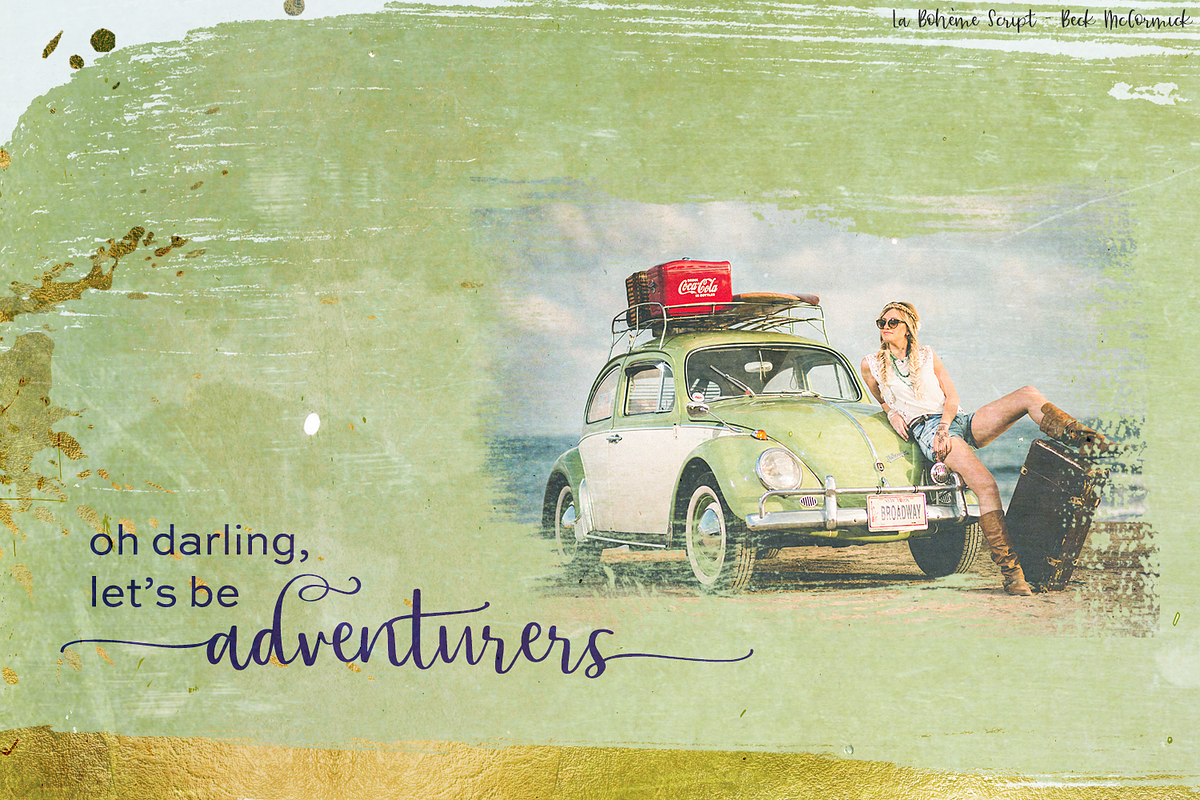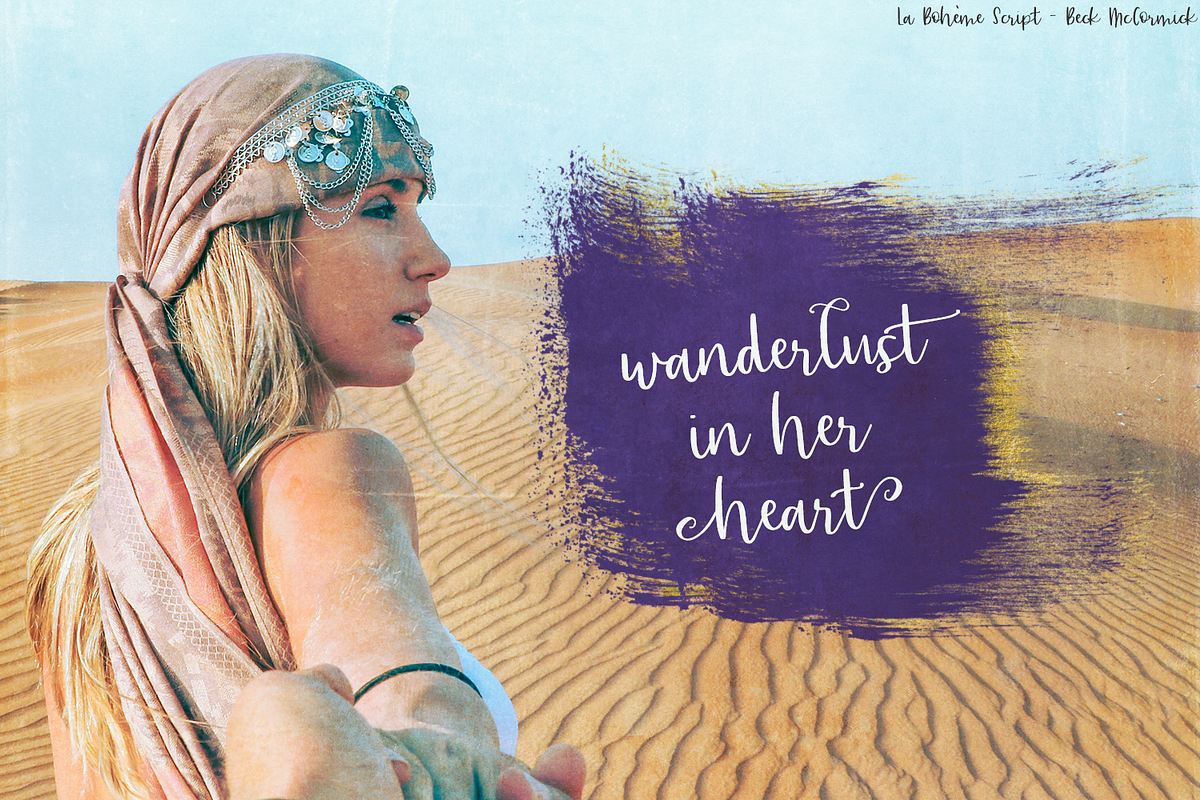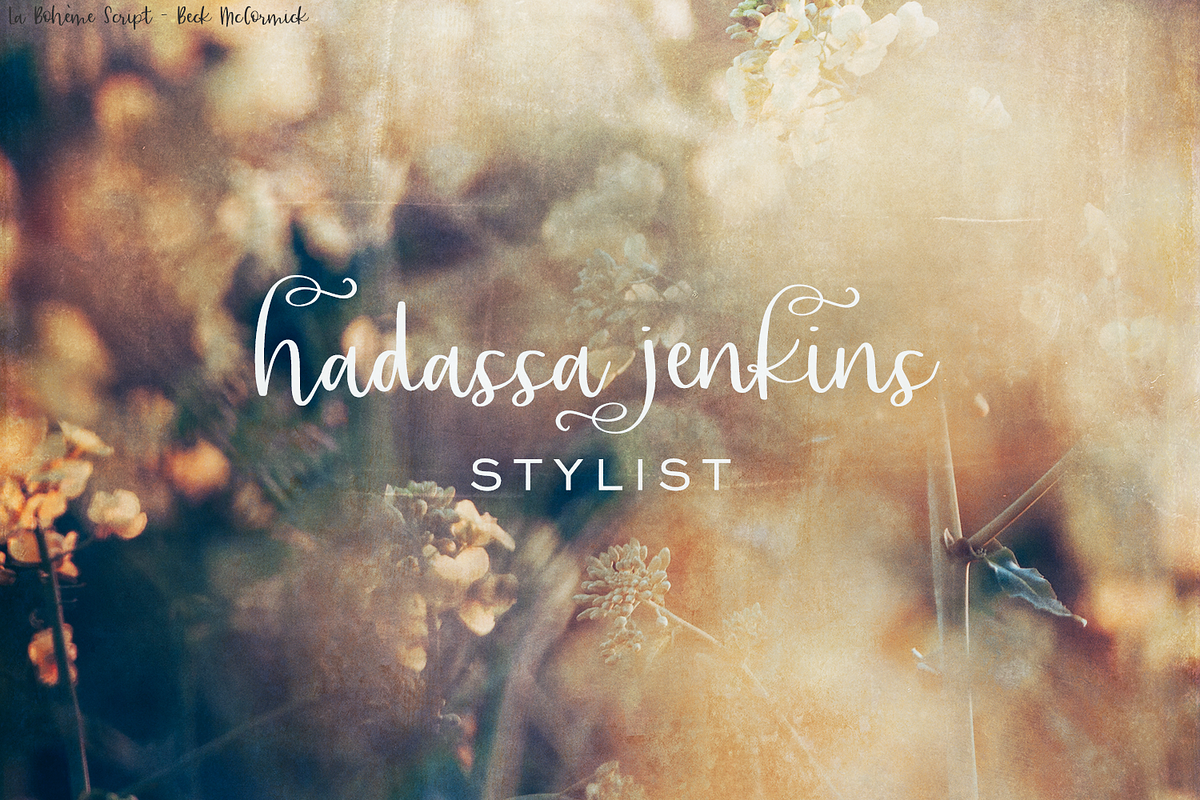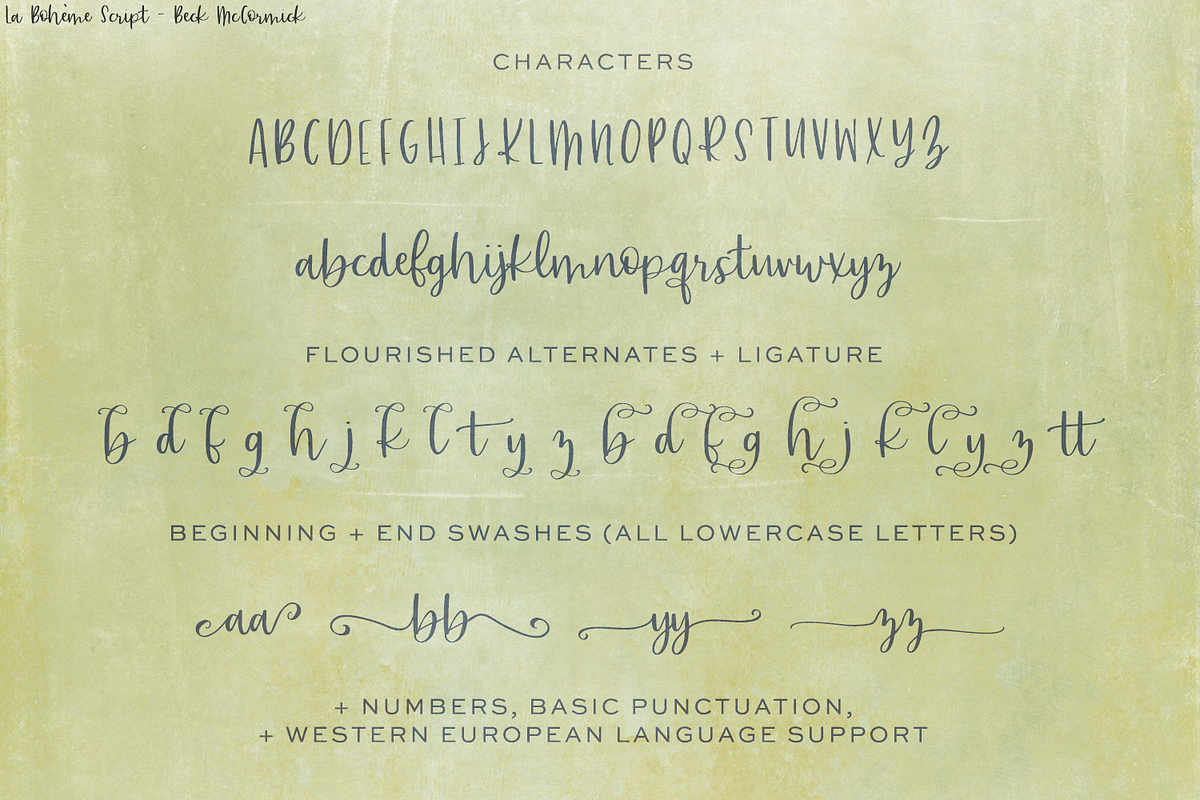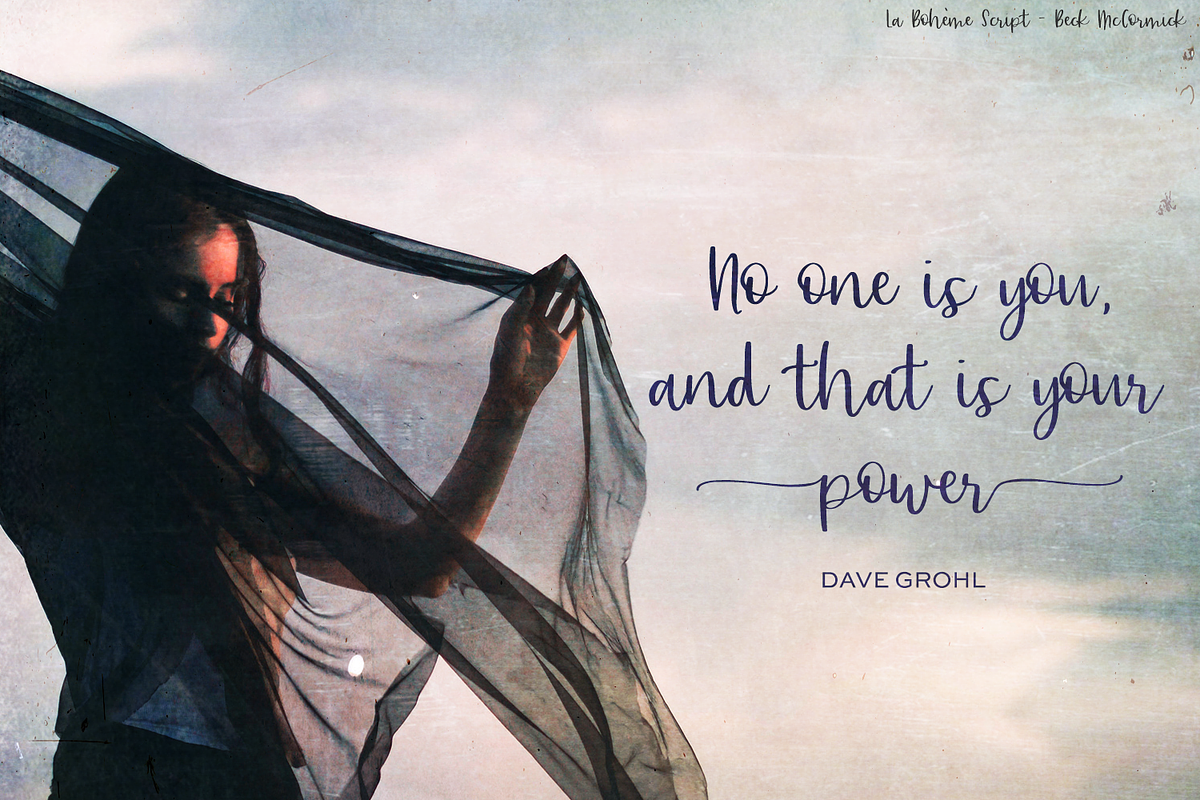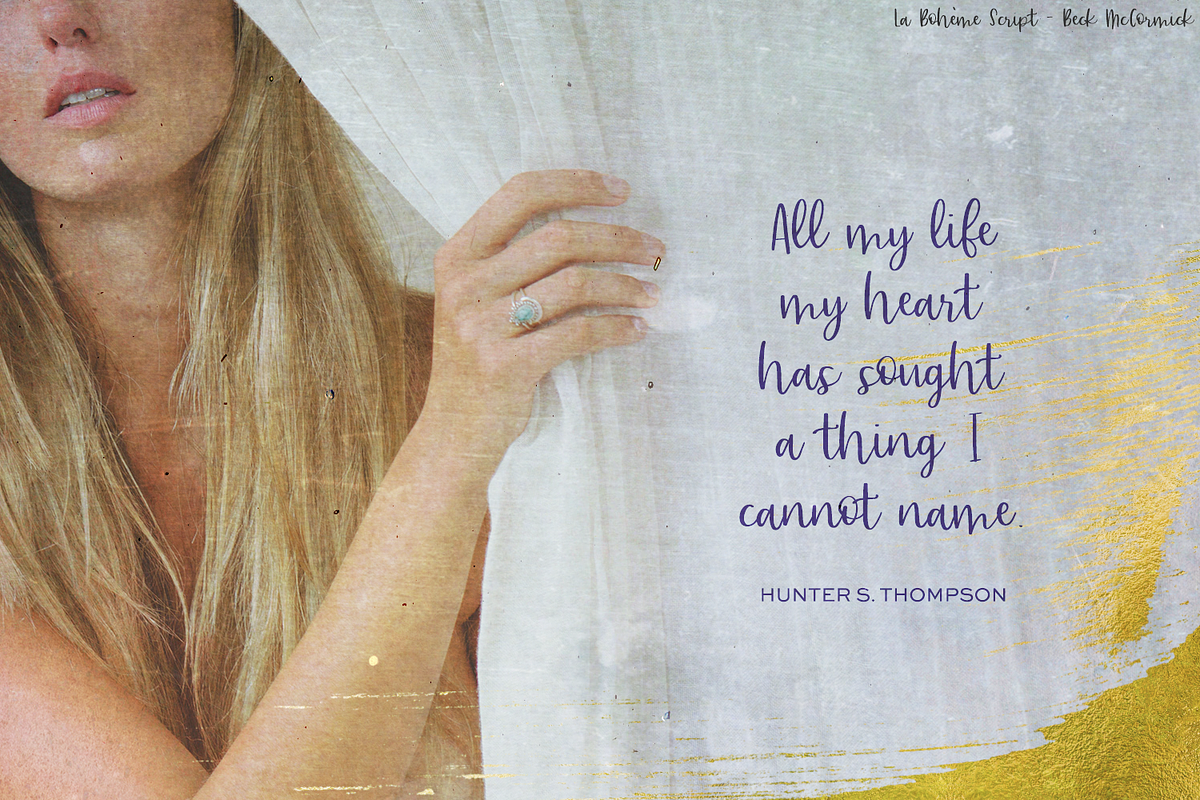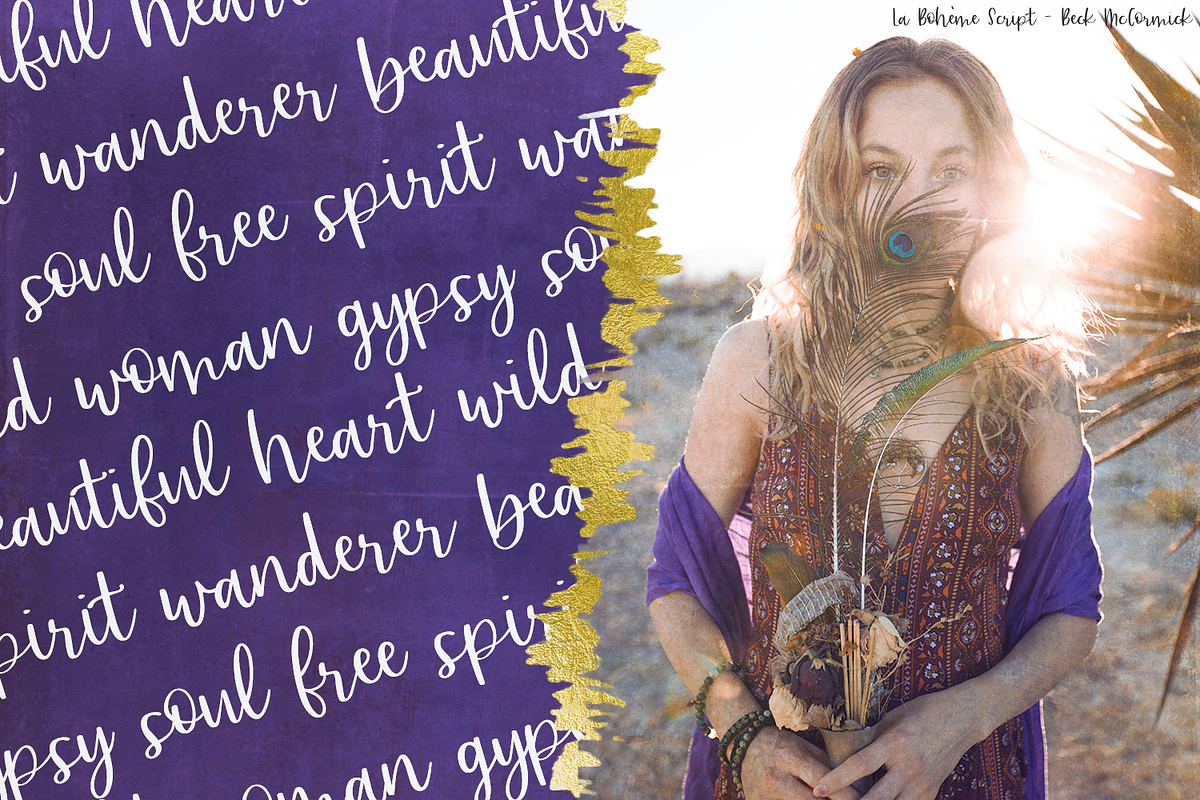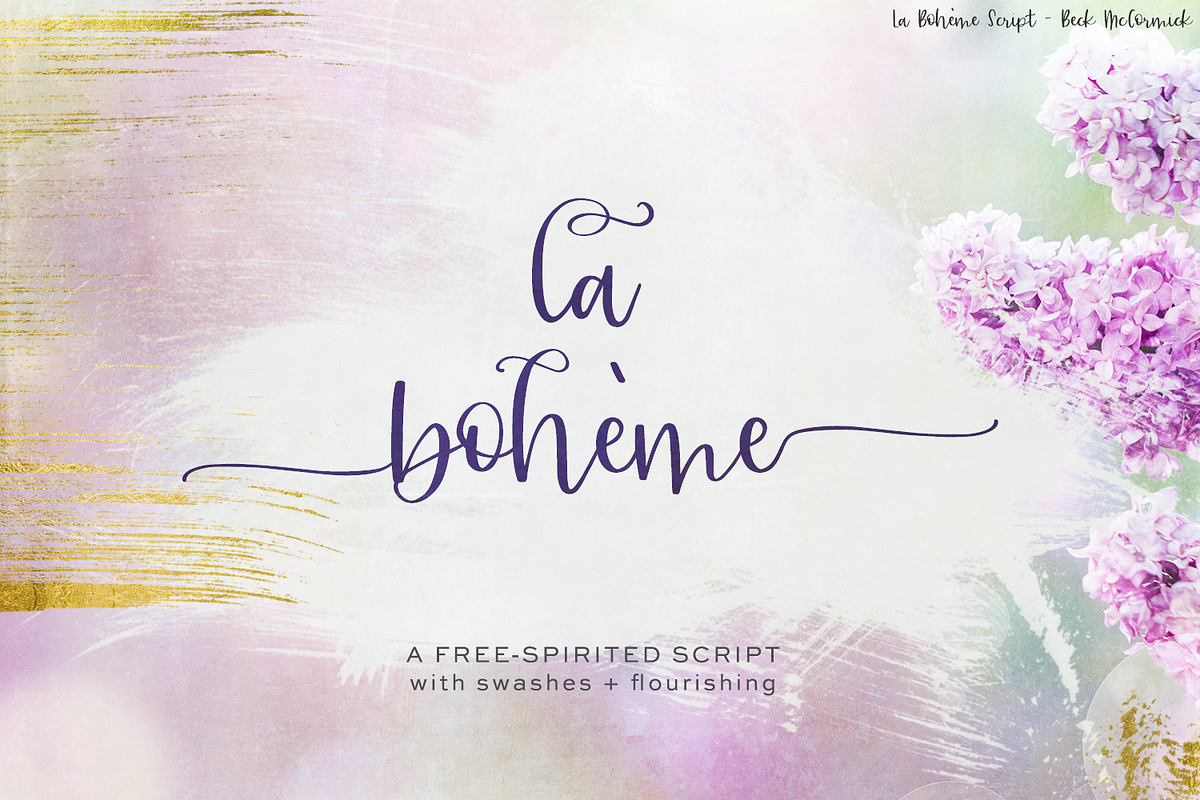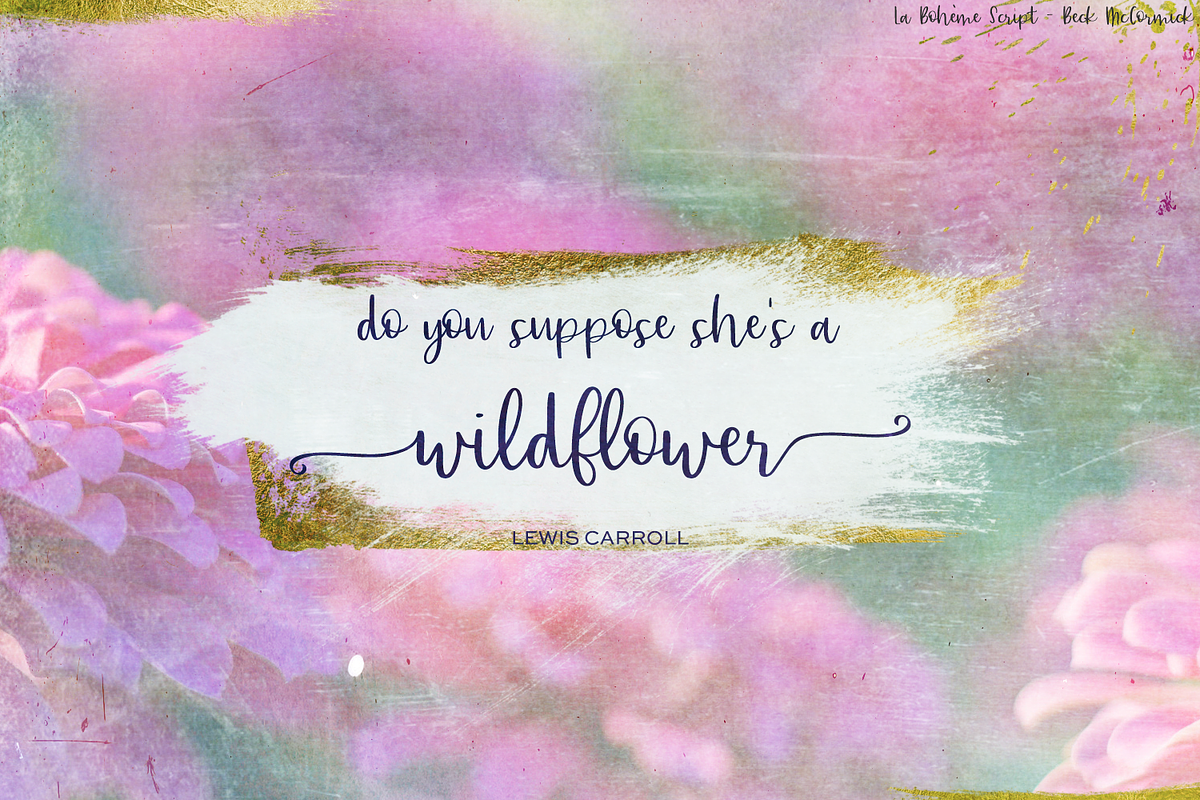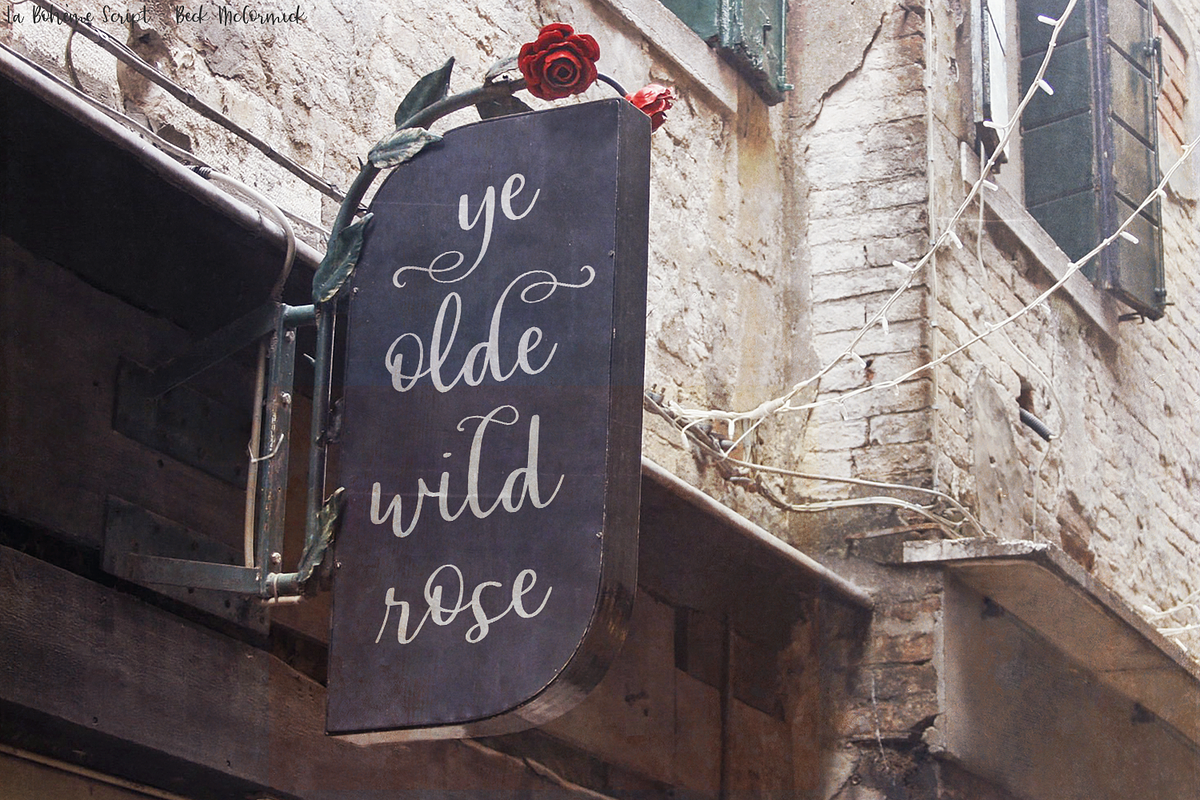
La Boheme Script
Introducing the free-spirited La Boheme Script packed full of beautiful, diverse features!
La Boheme Script will be a perfect fit for:
- modern branding projects - perfect for fashion, beauty, blogging, and feminine brands
- design projects like cards, stationery, or typography creations
- websites
- print design like magazines, flyers, & more
- social media graphics + quotes
La Boheme Script includes:
- full upper + lowercase
- numbers, punctuation
- Western European Language Support
- 21 single letter stylistic alternates, an initial “r” form, + 1 double letter ligature “tt”
- 4 left-side swash options, and 4 right-side swash options